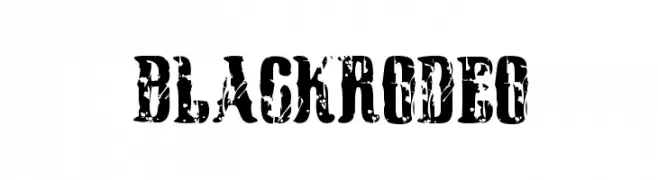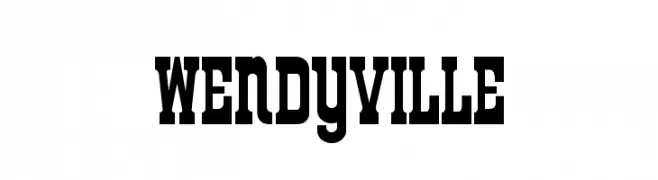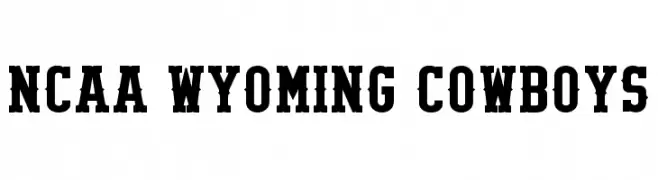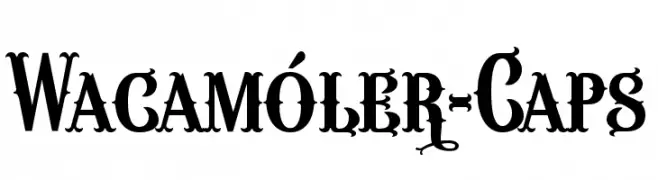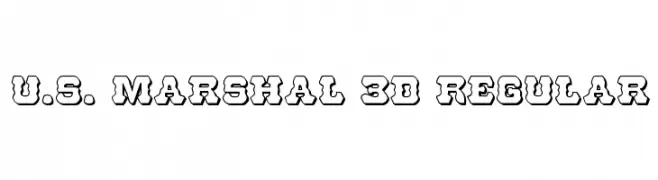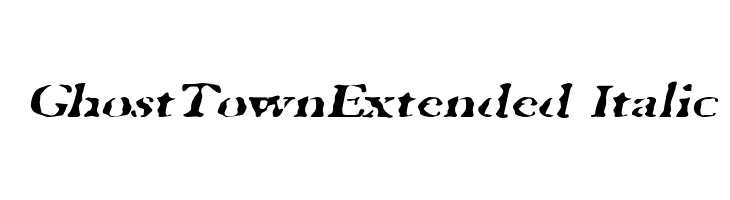
A bold, distressed font with a vintage, weathered look.
A bold, distressed font with a vintage, western-inspired style.
A bold, slab serif font with a vintage Western style.
A bold, distressed font with a rugged, vintage aesthetic.
Bold, condensed, and italic with a vintage western flair.
A bold, condensed font with a rugged, Western-inspired style.
A bold, 3D decorative font with a vintage Western flair.